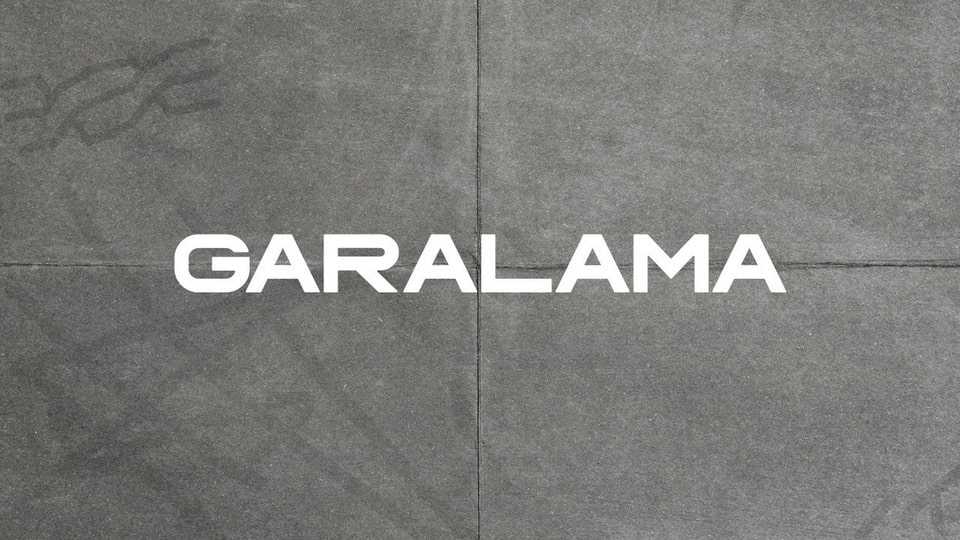
Download Garalama font, a bold and strong display typeface designed when as a beginner with lettering. Tried to show the urban style in Garalama font and decided to make it display.
Designer: Davud Hezretov